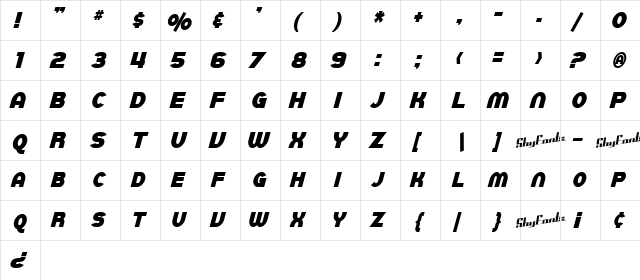
SF Juggernaut Condensed2 Bold Italic Font Preview
Design Context for SF Juggernaut Condensed2 Typeface
SF Juggernaut Condensed2 offers clean, dependable letterforms without strong stylistic allegiance, making it a practical choice for designers who need flexibility. The slanted form adds forward momentum and visual energy. The heavy weight commands attention and anchors typographic hierarchies. Its narrow stance lets it pack a punch even in space-constrained designs.
Pro Tip: Use SF Juggernaut Condensed2 for emphasis, pull quotes, and subheadings where its slanted energy can add rhythm to the layout.